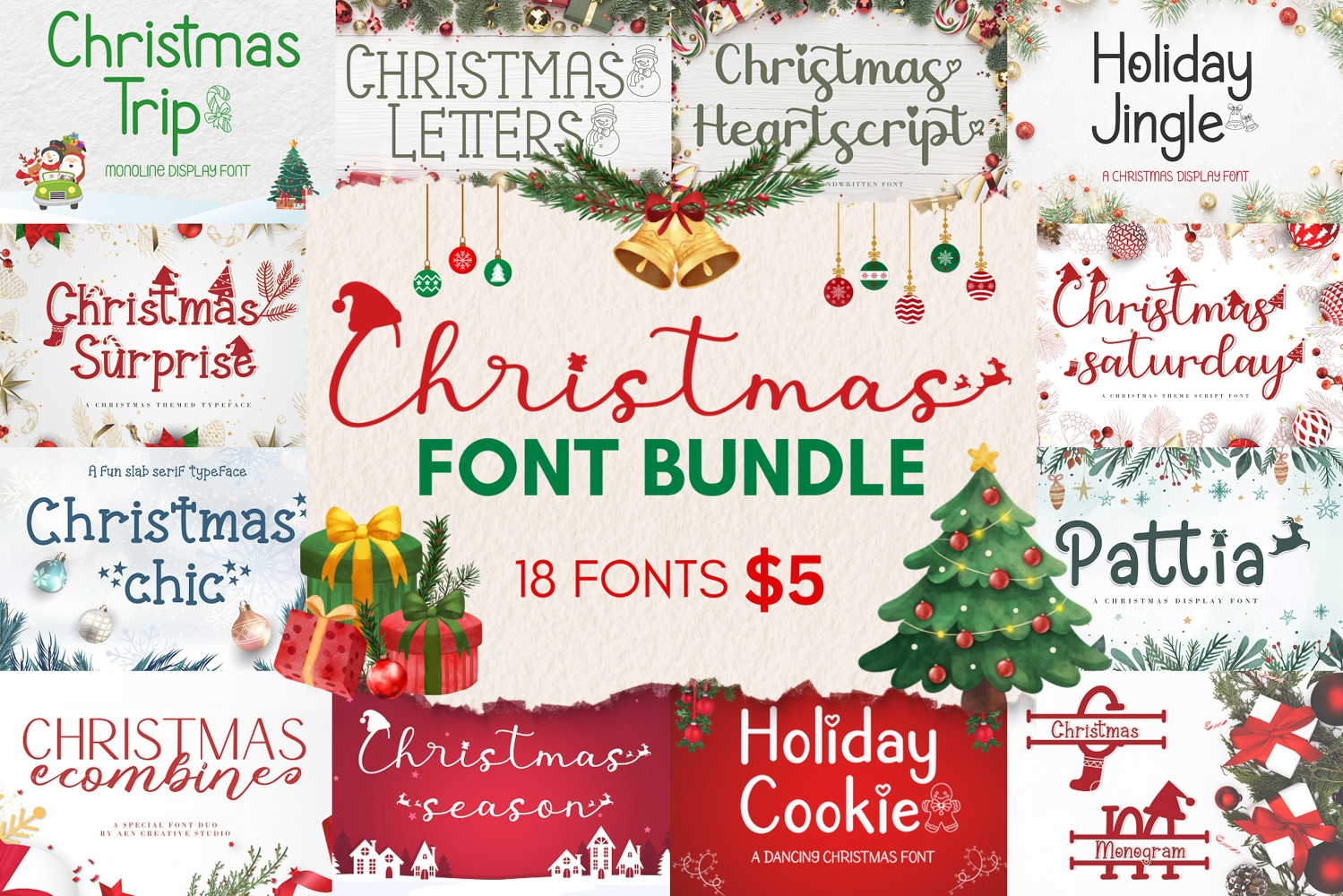
Best Collection - Christmas Font Bundle
Introducing, Best Collection - Christmas Font Bundle
This bundle includes a variety of font styles such as a monogram, script, sans serif, brush lettering, handwriting, and many more, with hundreds of glyphs, including alternates, ligatures, swashes, and multilingual support.
Fonts included :
1. Stunning Christmas Monogram
2. Cute Christmas Monogram
3. Christmas Surprise Monogram
4. Christmas Season
5. Christmas Saturday
6. Christmas Combine Font Duo
7. Pattia
8. Christmas Glad
9. Christmas Surprise
10. Christmas Chic
11. Christmas Miracle
12. Christmas Ink
13. Christmas Chalk
14. Christmas Trip
15. Holiday Jingle
16. Holiday Cookie
17. Christmas Letters
18. Christmas Heartscript